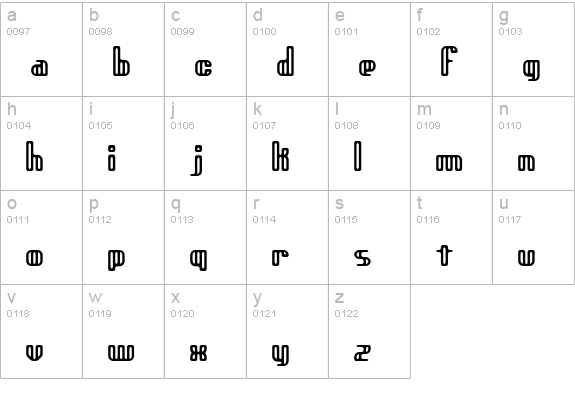
The RH-BRK genotype font is a unique and stylish typeface that combines modern design elements with a touch of elegance. Its intricate details and sharp edges make it perfect for adding a bold statement to your projects. This font is versatile and can be used for a variety of design purposes, including logos, branding, posters, and more. What makes the RH-BRK genotype font even more appealing is that it is freely available to download at FontsMarket.com. With just a few clicks, you can enhance your designs with this eye-catching font without any cost. Don't miss out on the opportunity to elevate your projects with the RH-BRK genotype font – download it today and let your creativity shine!